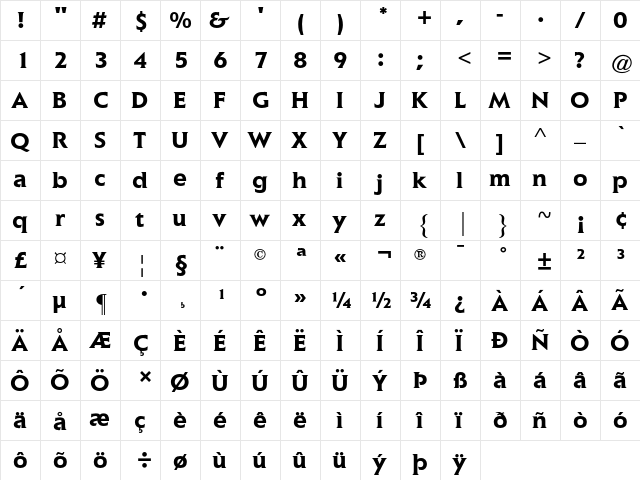
Elan AT Bold Regular
Design Context for Elan AT Bold Typeface
Elan AT Bold offers clean, dependable letterforms without strong stylistic allegiance, making it a practical choice for designers who need flexibility. The heavy weight commands attention and anchors typographic hierarchies.